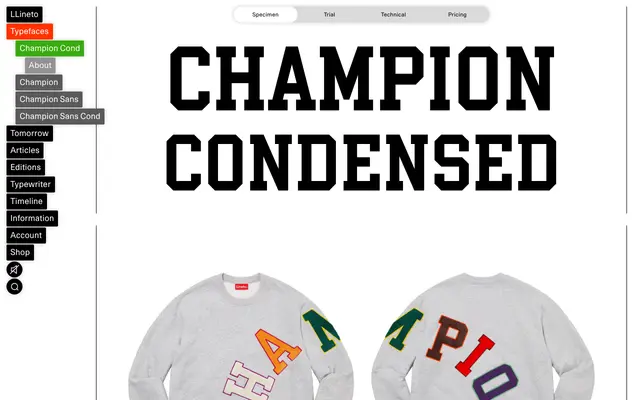
LL Champion Cond
Lineto · Weichi He · 2024
A rigorously systematised take on American varsity slab lettering, designed by Weichi He with no curves and a duplexed fixed box width across three weights.
Drawing from turn-of-the-century wood type and US sports jersey lettering, Weichi He applied an R&D process more typical of refined text typefaces to a genre usually defined by DIY improvisation. Every letterform is strictly rectilinear with no curves, and the three weights within each width are duplexed, sharing a fixed box width to prevent text reflow and reinforce the mechanical logic of the construction. The family extends to LL Champion Sans and layerable Carved and Shadow variants, with a tight set of historical alternates for additional character.
LL Champion is explicitly described as an angular slab serif in the varsity tradition, with strictly rectilinear construction and no curves throughout the glyph set. The condensed subfamily shares the same monolinear, mechanically constructed character as the full family.